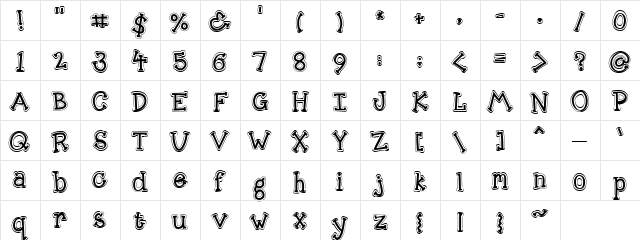
Scrap Outline Regular
Scrap Outline brings ornamental detail and strong personality to headlines and identities, where visual impact matters more than quiet functionality.
Font Pairing: Pair with a clean neutral sans-serif for body copy to let Scrap Outline's character lead without overwhelming the composition.
Pro Tip: Use Scrap Outline exclusively at display sizes — it was designed to be seen, not read at length. Let a neutral companion handle body copy.